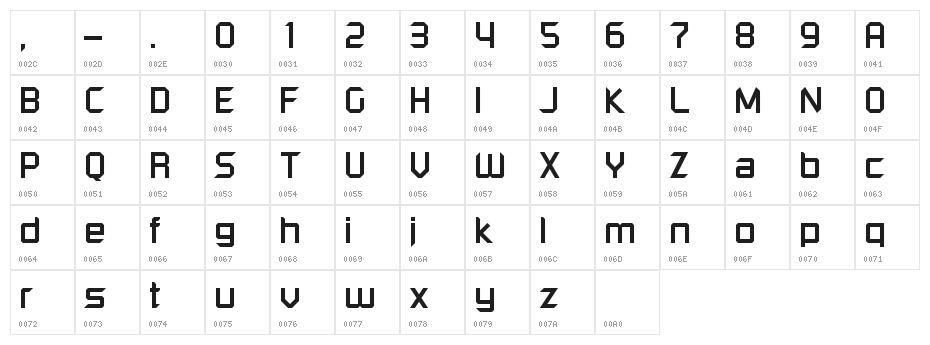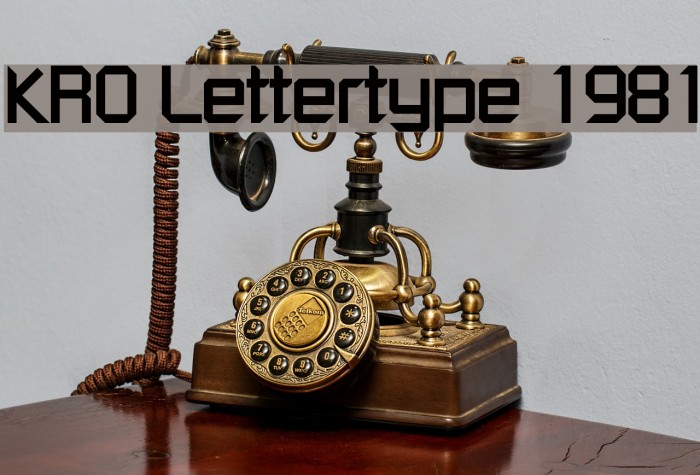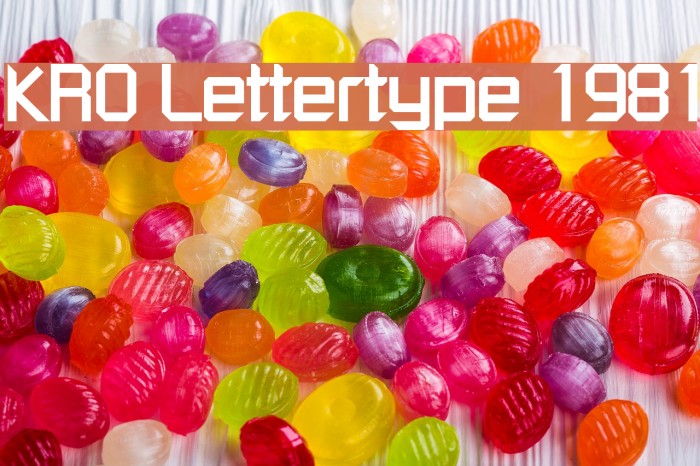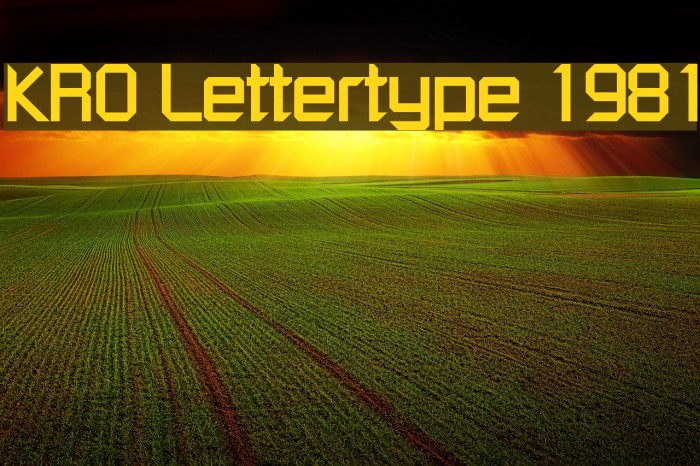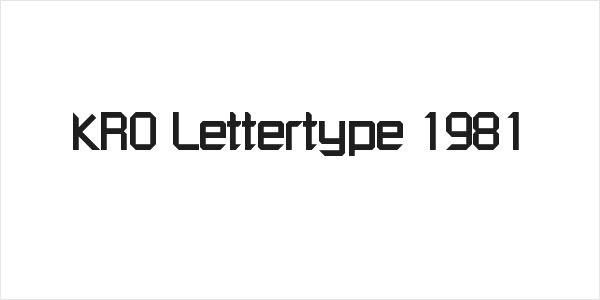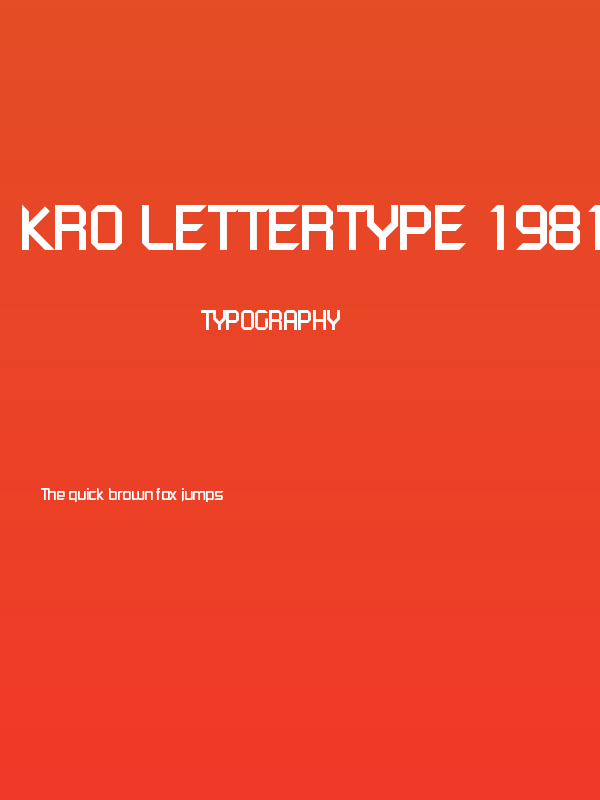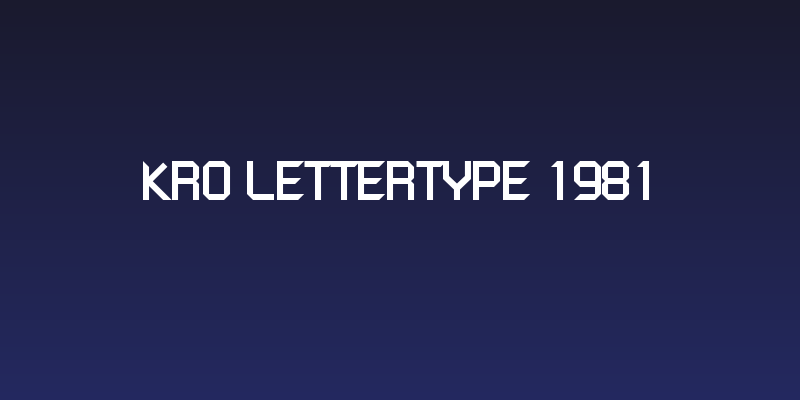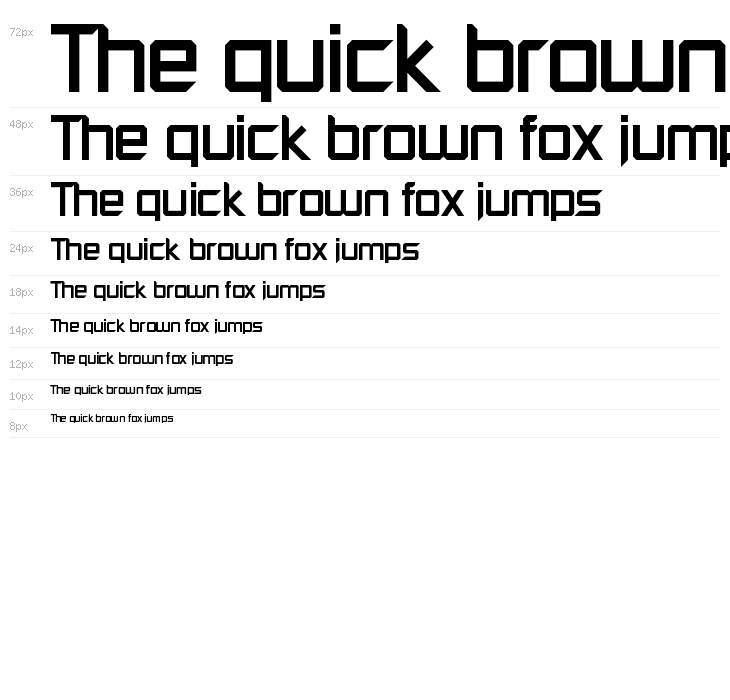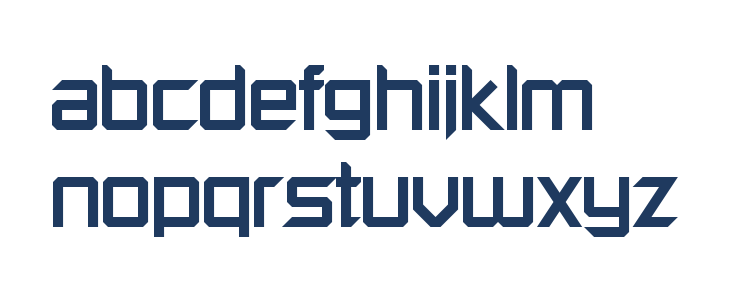
KRO Lettertype 1981 Font
✎ Futuristic
| समग्र शैली | Futuristic |
| उपयोग का मामला | Headlines, Logos, Posters |
| सुझाए गए प्रोजेक्ट | Ideal for sci-fi themed posters, video game titles, technology branding, and modern graphic design projects. |